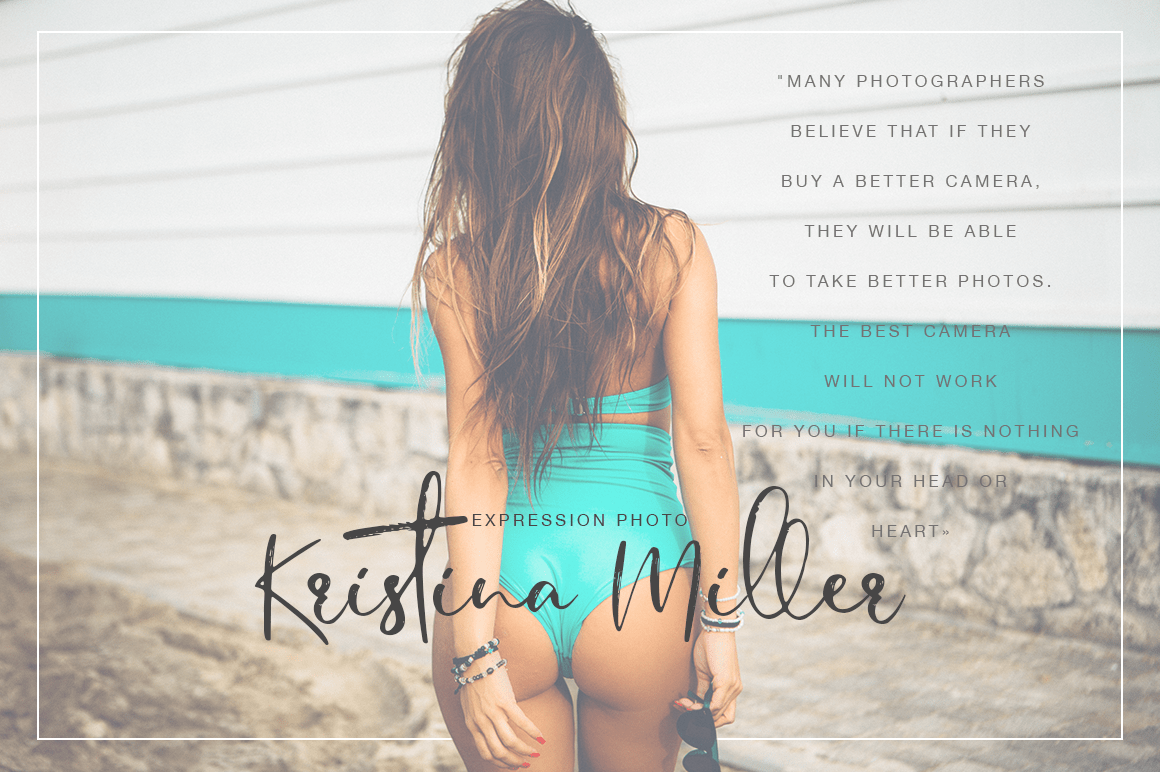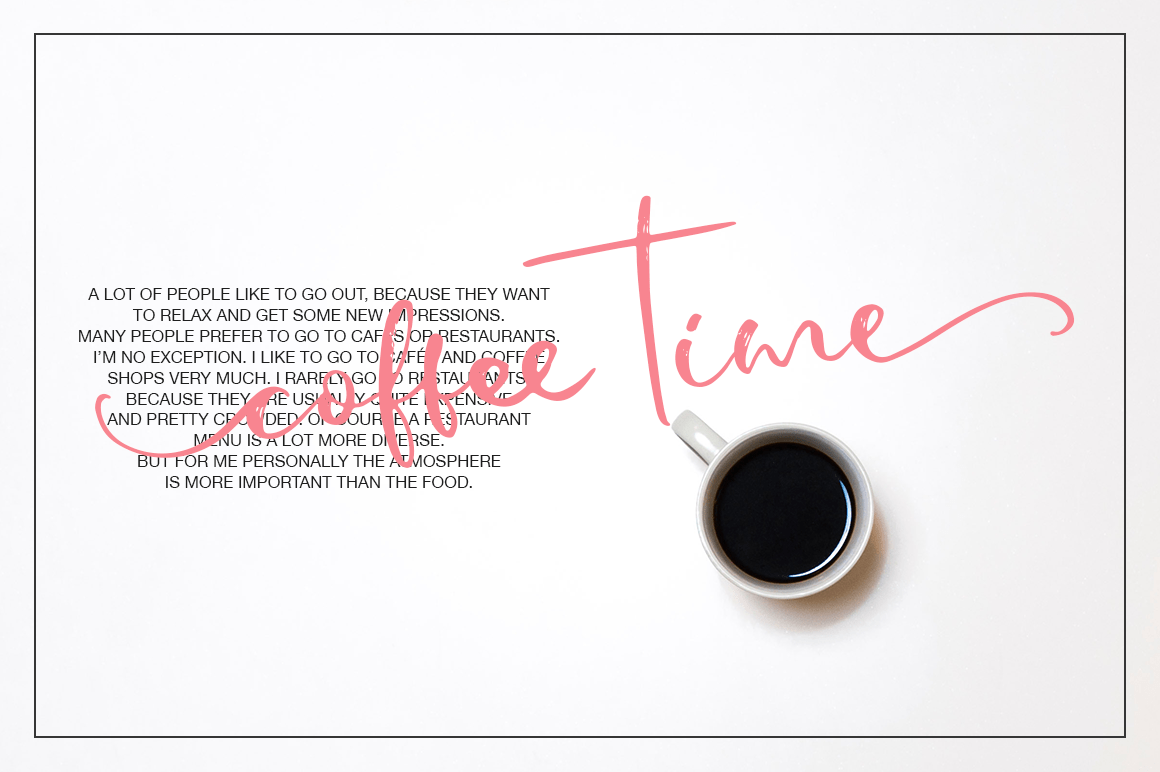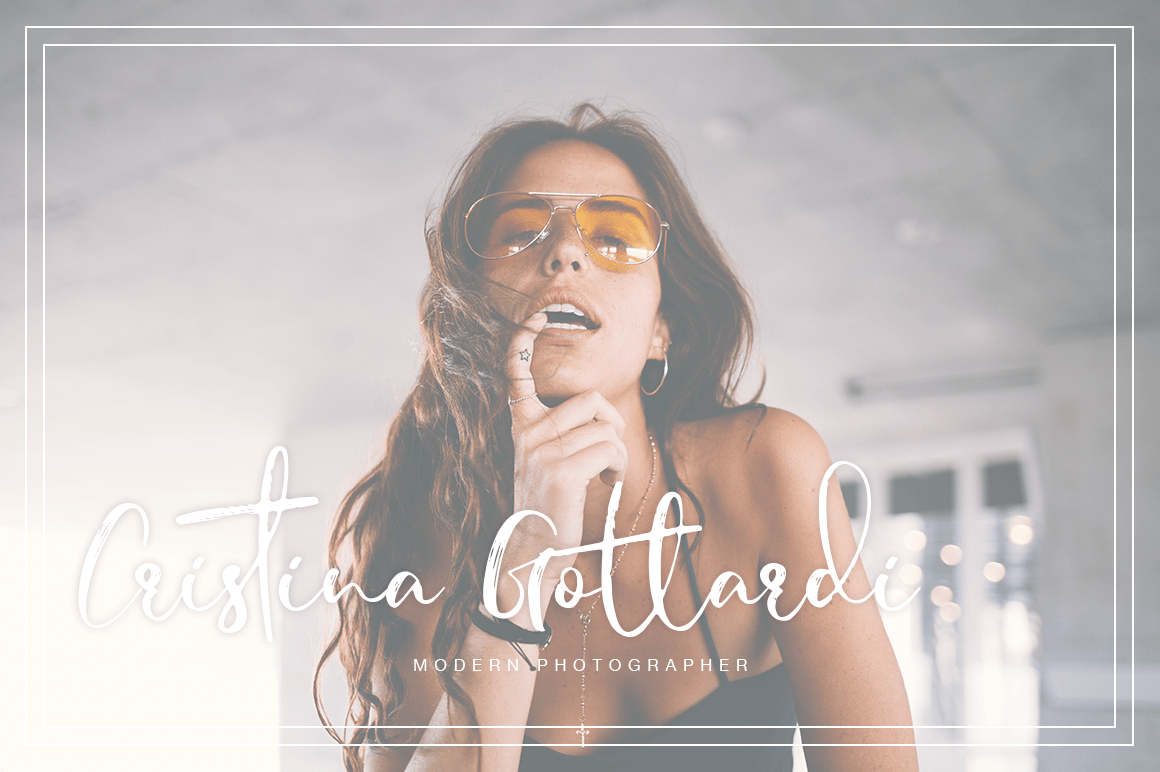
Jiguliny Script Font
Jiguliny – a new fresh handmade calligraphy font. Very suitable for greeting cards, branding materials, business cards, quotes, posters, and more! This font are perfect for wedding postcard. Or you can create perfect and unique design of your logo, blog, stationery, marketing, magazines and more 🙂
Features :
• UpperCase & Lowercase
• Numerals & Punctuations
• Multilingualcharacters(AÀÁÂÃÄÅCÇDÐEÈÉÊËIÌÍÎÏNÑOØÒÓÔÕÖUÙÜÚÛWYÝŸŸ ÆŒßÞàáâãäåæçèéêëìíîïðñòóôõöøùúûüýÿ)
• LIGATURES